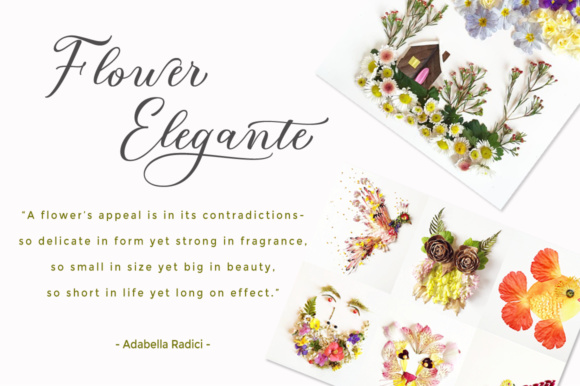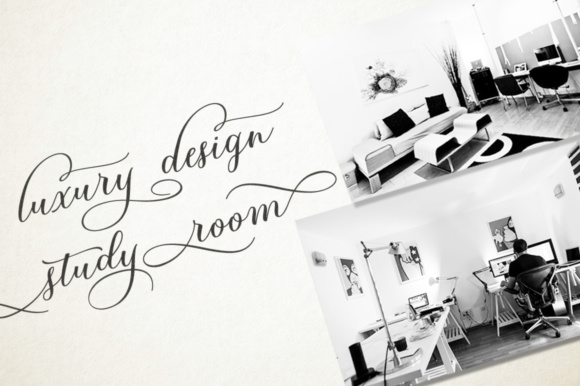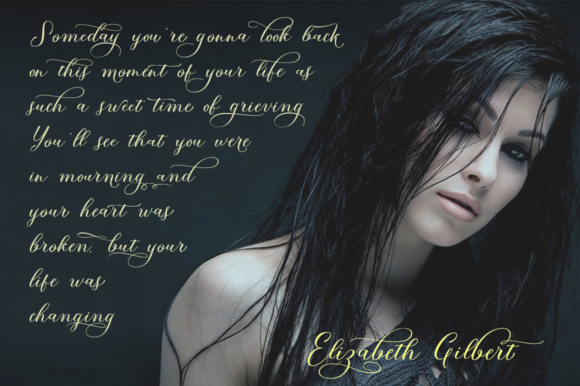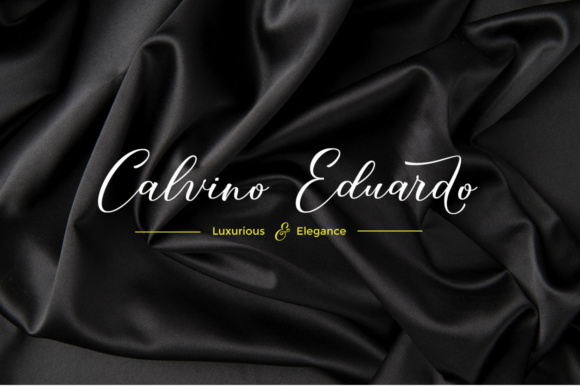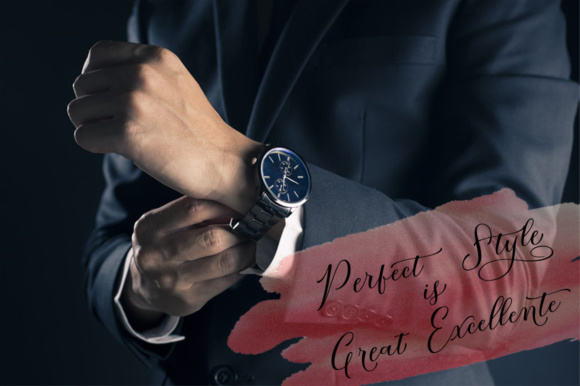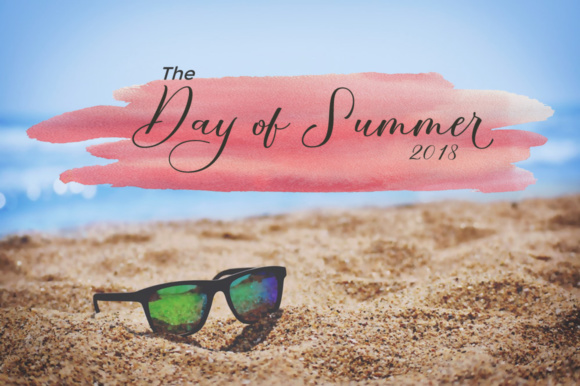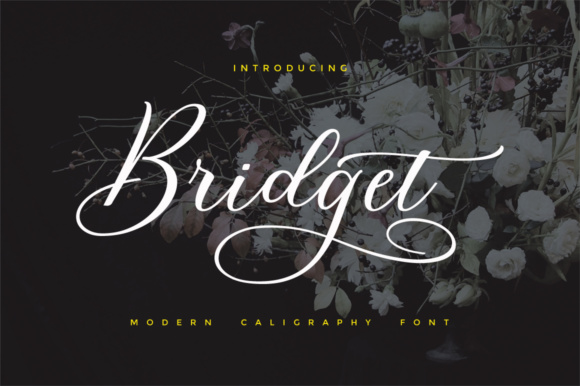
Introducing the Elegant Bridget Script Font: Elevate Your Designs with a Touch of Sophistication
In the realm of typography, the right font can transform your design, giving it a unique voice and personality. For those seeking a modern script that exudes elegance and femininity, the Bridget Script Font is an exceptional choice. This fresh, modern script boasts a calligraphic style that adds a touch of sophistication to any project. With its decorative characters dancing on the baseline, the Bridget Script Font brings a dynamic flow to your texts, making them stand out on any screen or medium.
Aesthetic Appeal and Versatility
The Bridget Script Font is characterized by its beautiful, fluid lines and a distinctly feminine touch. This makes it particularly well-suited for projects where elegance and charm are key. One of the standout features of this font is its versatility. Whether you’re designing wedding invitations, crafting personal branding materials, or creating engaging content for social media, the Bridget Script Font can be seamlessly integrated into a wide range of projects. Its decorative elements add a layer of sophistication and grace, making any text feel more luxurious and refined.
Ideal Applications for the Bridget Script Font
Given its aesthetic appeal, the Bridget Script Font finds its application in various design projects. Here are some of the ideal uses for this beautiful font:
- Wedding Invitations: The font’s elegant and romantic feel makes it perfect for wedding invites, adding a personal and intimate touch to the announcement of your special day.
- Floral Designs: When paired with floral patterns or illustrations, the Bridget Script Font creates a harmonious and visually appealing combination that is ideal for stationery, posters, and more.
- Personal Branding: For individuals looking to establish a personal brand that speaks to elegance and sophistication, this font can be a valuable asset in creating a consistent visual identity.
- Social Media Content: For bloggers, influencers, and small business owners, the Bridget Script Font can add a touch of personality and charm to social media posts, making them more engaging and shareable.
Why Designers and Crafters Love the Bridget Script Font
Designers and crafters appreciate fonts that offer both aesthetic appeal and practicality. The Bridget Script Font checks all the right boxes:
- Easy to Read: Despite its decorative nature, the font remains clear and easy to read, making it suitable for both headings and body text.
- Highly Versatile: It can be used in digital formats as well as in print, offering flexibility across different mediums.
- Customizable: The font can be adjusted in size, color, and style to fit the specific needs of your project, allowing for creative freedom.
The Bridget Script Font is a stunning addition to any designer’s toolkit. Its modern calligraphic style, combined with its feminine charm and versatility, makes it an ideal choice for a variety of projects. Whether you’re creating wedding invitations, personal branding materials, or simply looking to add a touch of elegance to your digital content, the Bridget Script Font is sure to impress. With its decorative characters dancing across the baseline, this font brings a sense of movement and grace to your texts, elevating your designs to new heights of sophistication and style.
Incorporating the Bridget Script Font into your designs is a straightforward way to add a professional and polished touch. Its unique blend of modernity and classic calligraphy ensures that your work stands out, conveying a sense of luxury and attention to detail. For designers and crafters looking to make a lasting impression, the Bridget Script Font is an invaluable resource.